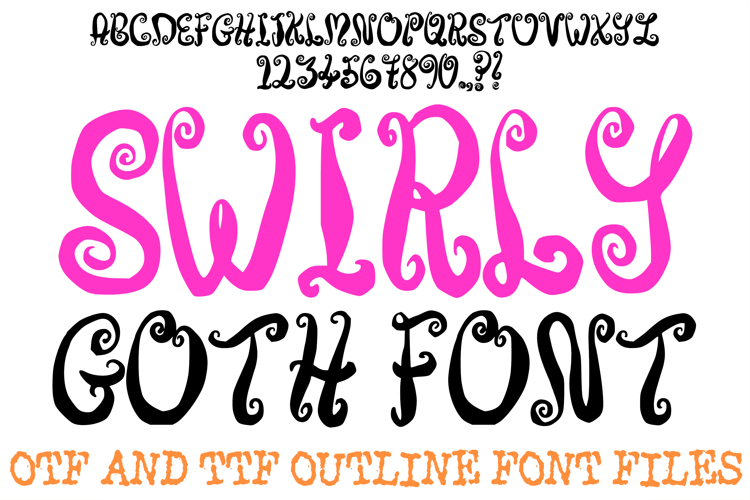
Swirly Goth Font Whimsy Doodle Lettering Curly Type ABC OTF
Embrace the dark side of charm with the Swirly Goth Font! This enchanting display typeface blends a gothic, heavy-weighted silhouette with delicate, hand-drawn spiral flourishes and whimsical curls that sprout from every character. It is the perfect choice for "pastel goth" branding, spooky-themed nursery decor, edgy wedding invitations, and any project that needs a touch of mysterious elegance.
The thick, bold letterforms provide a strong visual foundation, while the intricate doodle swirls add a layer of feminine, storybook magic. Whether you are designing custom apparel for an alternative brand, creating mystical social media graphics, or working on personalized gift tags, the Swirly Goth Font delivers a professional, artisan-crafted aesthetic that is both bold and whimsical.
Gothic-Whimsy Fusion: A unique blend of heavy, bold gothic shapes and playful, lighthearted curls.
Intricate Spiral Detailing: Every character features decorative swirls that add instant texture and visual interest to your text.